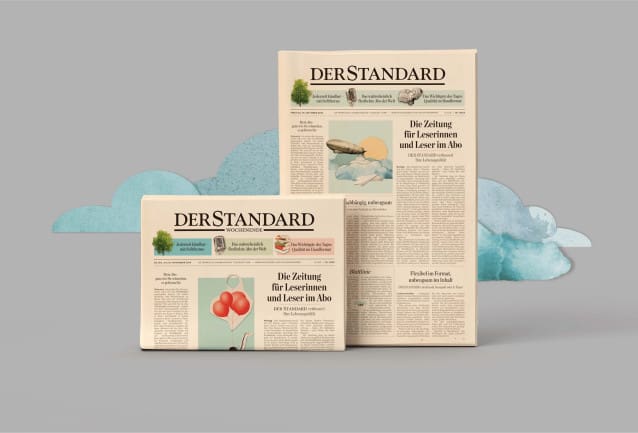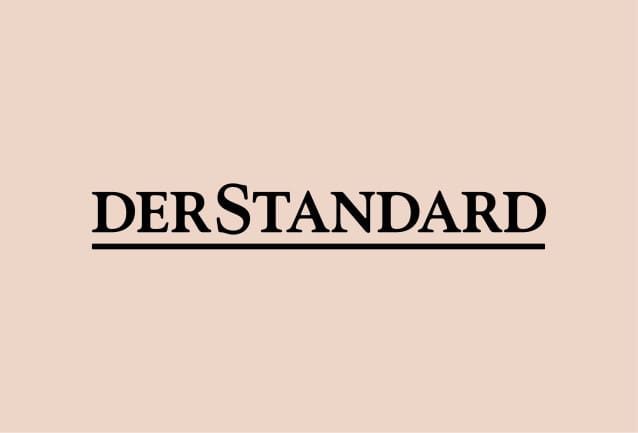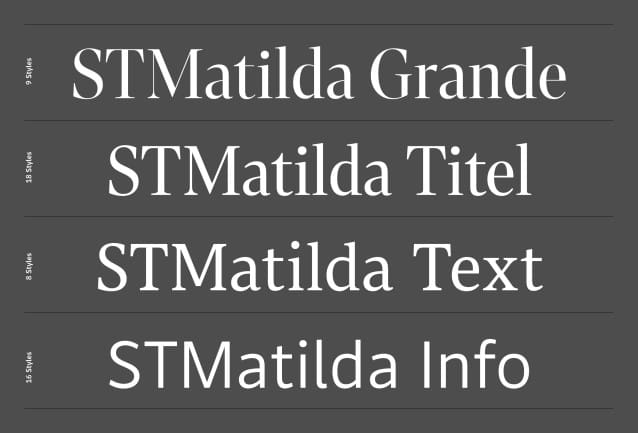
STMatilda Font Family
STMatilda Font Family is a custom typeface series for the Austrian daily newspaper ‘Der Standard’, made by Schriftlabor in collaboration with FaceType. It consists of 5 subfamilies; STMatilda Ressortkopf, STMatilda Info, STMatildaText, STMatildaTitel, and STMatildaGrande, for a total of 53 fonts plus 7 variable fonts. A first style debuted in October 2018, together with a new masthead. Extended over the course of the following years.